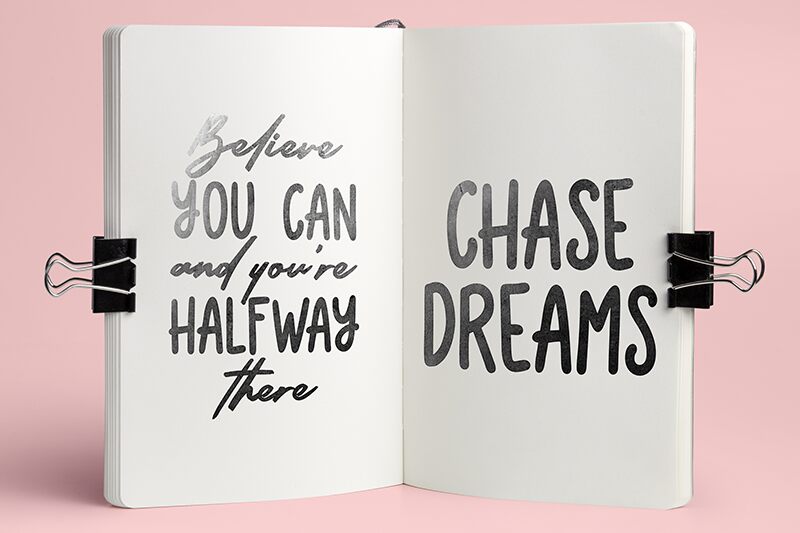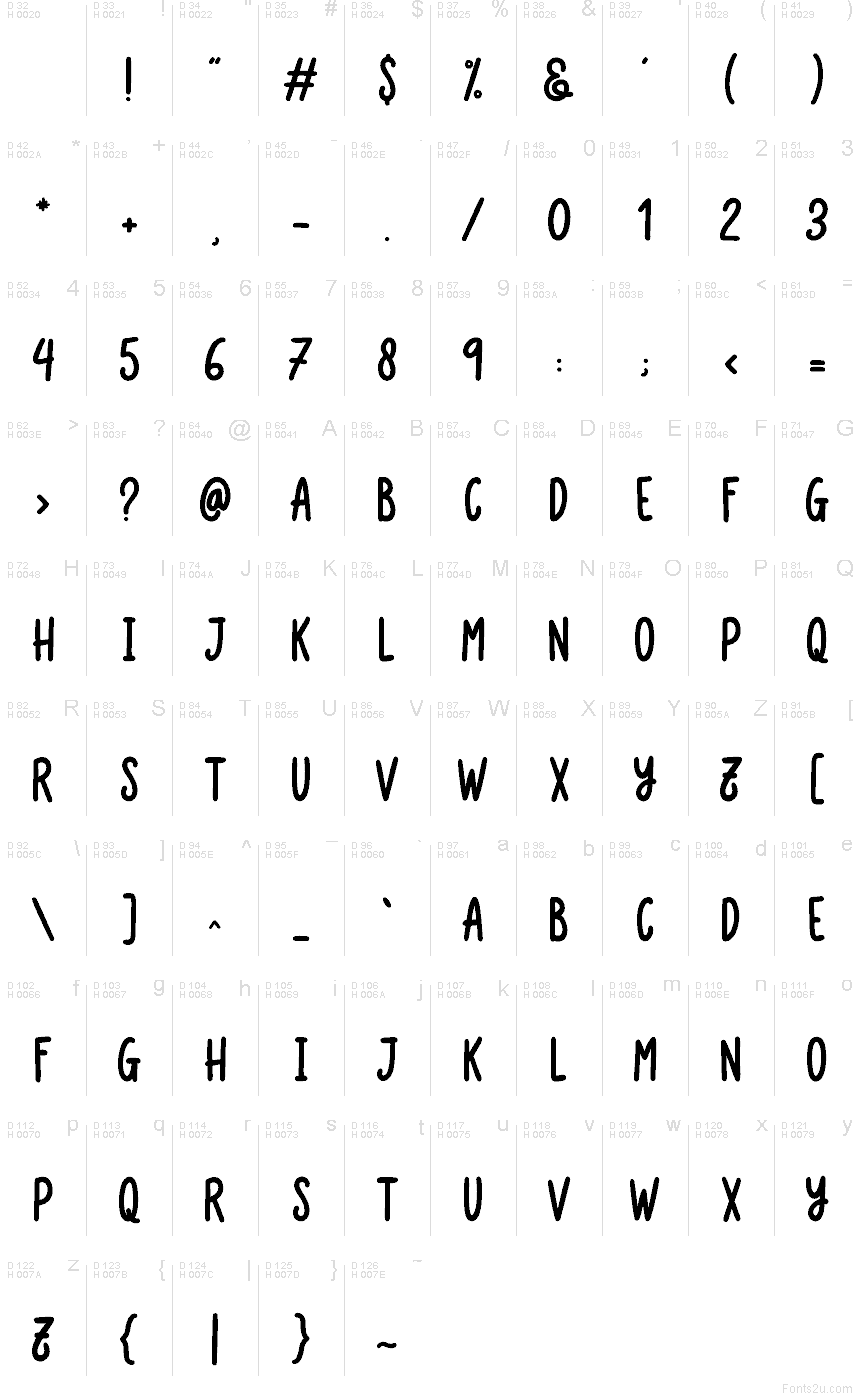
Blossom Sans
Blossom Sans font by Riyadh Rahman is a free handwritten typeface that feels like bold marker lettering on textured paper. Tall, narrow letters stand shoulder to shoulder, while the playful curled endings add a little flourish without getting messy. The strokes are solid and inky, giving every word a hand-painted, signboard energy that’s easy to read yet full of personality.
Using Blossom Sans, your text instantly picks up a warm, crafty vibe that works beautifully for product packaging, quote graphics, greeting cards, kids’ branding, event posters, and handmade shop logos. This free font holds up strongly at larger sizes, where the quirky curls can really breathe; pair it with a clean geometric sans in small text to keep layouts balanced and clear.